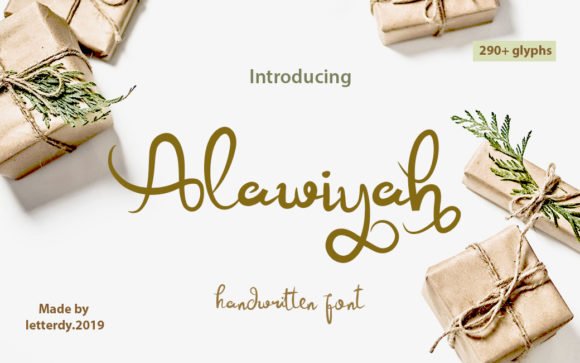
Discovering the Beauty of Alawiyah Font
Have you ever sat in front of your computer, staring at a blank canvas, waiting for inspiration to strike? Maybe you’re brainstorming a new project, or perhaps you’re searching for the perfect font to elevate your design. Whatever the case, I’m here to tell you that you’re in luck! Today, we’re going to dive into one of the most stunning and organic scripts out there – the Alawiyah Font.
This beautiful font is more than just a pretty face; it’s a tool designed to add a touch of elegance and sophistication to your designs. With its beautiful swashes and unique flair, the Alawiyah Font is perfect for anyone looking to add a personal touch to their work. Whether you’re a seasoned designer or just starting out, this font is sure to inspire and captivate your audience.
- Unique Characteristics: The font features a unique blend of traditional and modern elements, with intricate calligraphy and ornate details that set it apart from other fonts.
Alawiyah Font Review
I recently had the chance to work with the Alawiyah font, and I must say, it has some great features that make it a solid choice for designers.
- Unique aesthetic: Alawiyah has a distinct, elegant feel that sets it apart from more common fonts.
- Highly legible: The font is easy to read, even at smaller sizes, making it perfect for body text and headings.
- Limited language support: Alawiyah only includes basic Latin characters, which may be a limitation for designers working with languages that require more extensive character sets.
- No italics or bold variants: While the font is beautiful in its standard form, it would be great to see more stylistic options available.
Overall, I think Alawiyah is a great addition to any designer’s toolkit. While it may have some limitations, its unique aesthetic and high legibility make it a solid choice for a wide range of projects.
Tips for Getting the Most Out of Alawiyah Font
For optimal results, use Alawiyah font in combination with bold or italic styles to add emphasis and create visual interest. You can also experiment with different font sizes and colors to create a unique look. Additionally, use Alawiyah font to create a consistent brand identity across all your marketing materials.
Alawiyah font is ideal for creating professional-looking graphics, logos, and marketing materials, such as business cards, brochures, and social media posts. It’s also suitable for creating presentations, reports, and documents that require a touch of elegance and sophistication.
The Alawiyah Font is a beautiful script font, but it may not be suitable for all design projects. Here are 3-4 alternatives that designers can consider.